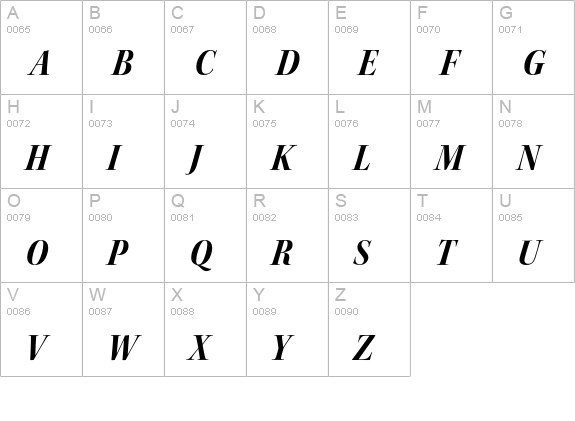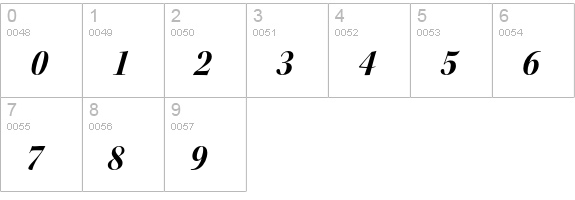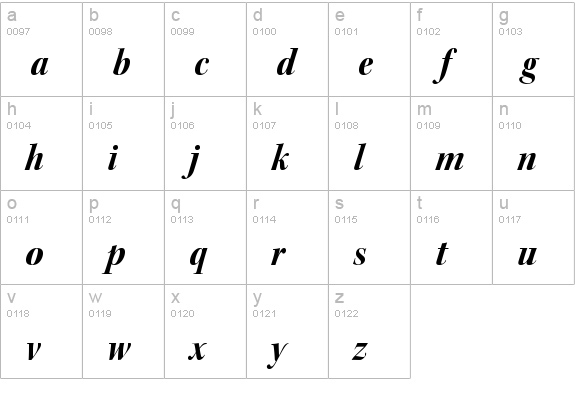
Kepler Std Bold Semicondensed Italic Display is a strong, high-contrast, italic variant in the Kepler typeface family \xE2\x80\x94 well suited to headlines, attention-grabbing titles, and strong calls-to-action.
The Kepler Std Bold Semicondensed Italic Display font is a striking and versatile typeface that is perfect for adding a touch of sophistication to any design project. With its bold and condensed letterforms, this font exudes a sense of strength and confidence, making it ideal for headlines, titles, and other attention-grabbing elements. The italicized slant of the letters adds a touch of elegance and dynamism to the overall design, making it a great choice for projects that require a modern and stylish aesthetic. Whether you're designing a sleek logo, creating eye-catching posters, or crafting a visually stunning website, the Kepler Std Bold Semicondensed Italic Display font is sure to make a lasting impression. One of the best things about this font is that it is freely available to download at FontsMarket.com. This means that you can easily access and use this font in your projects without any additional cost. With its high-quality design and extensive character set, the Kepler Std Bold Semicondensed Italic Display font offers incredible value and versatility. So why wait? Enhance your designs with the Kepler Std Bold Semicondensed Italic Display font today. Download it for free at FontsMarket.com and let your creativity soar.